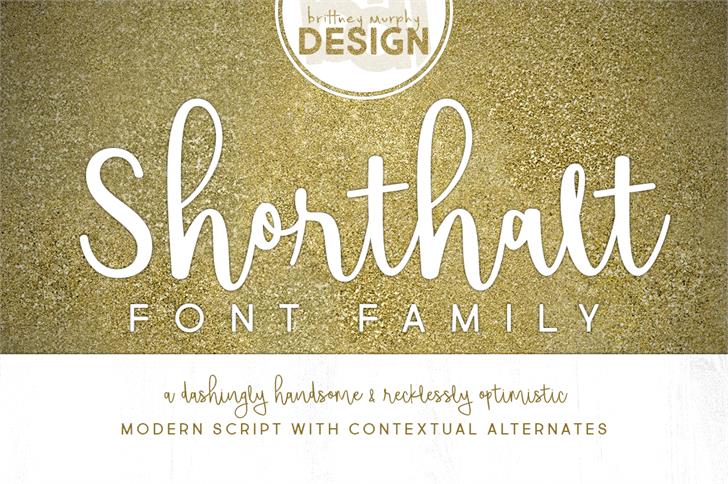
Shorthalt Script
Shorthalt Script Font
Shorthalt is an open type script with contextual alternates. It has 360 characters, including lots of accented letters.